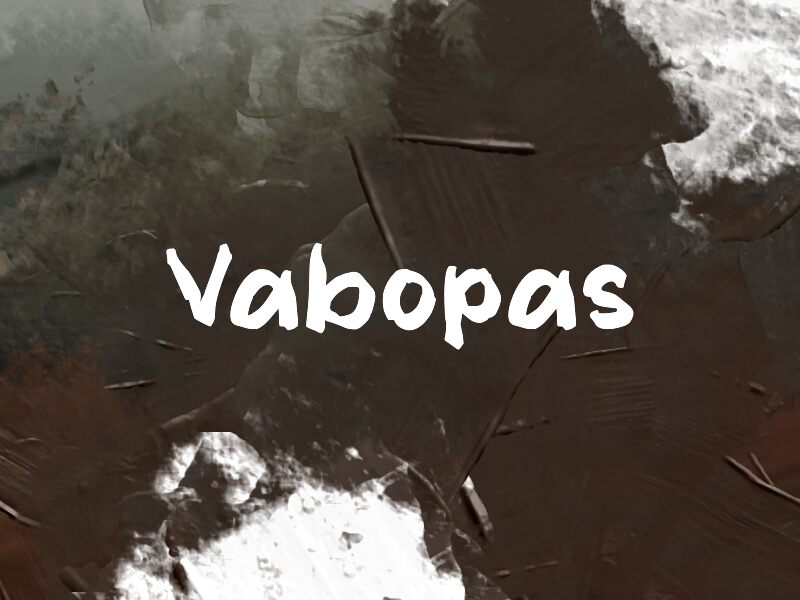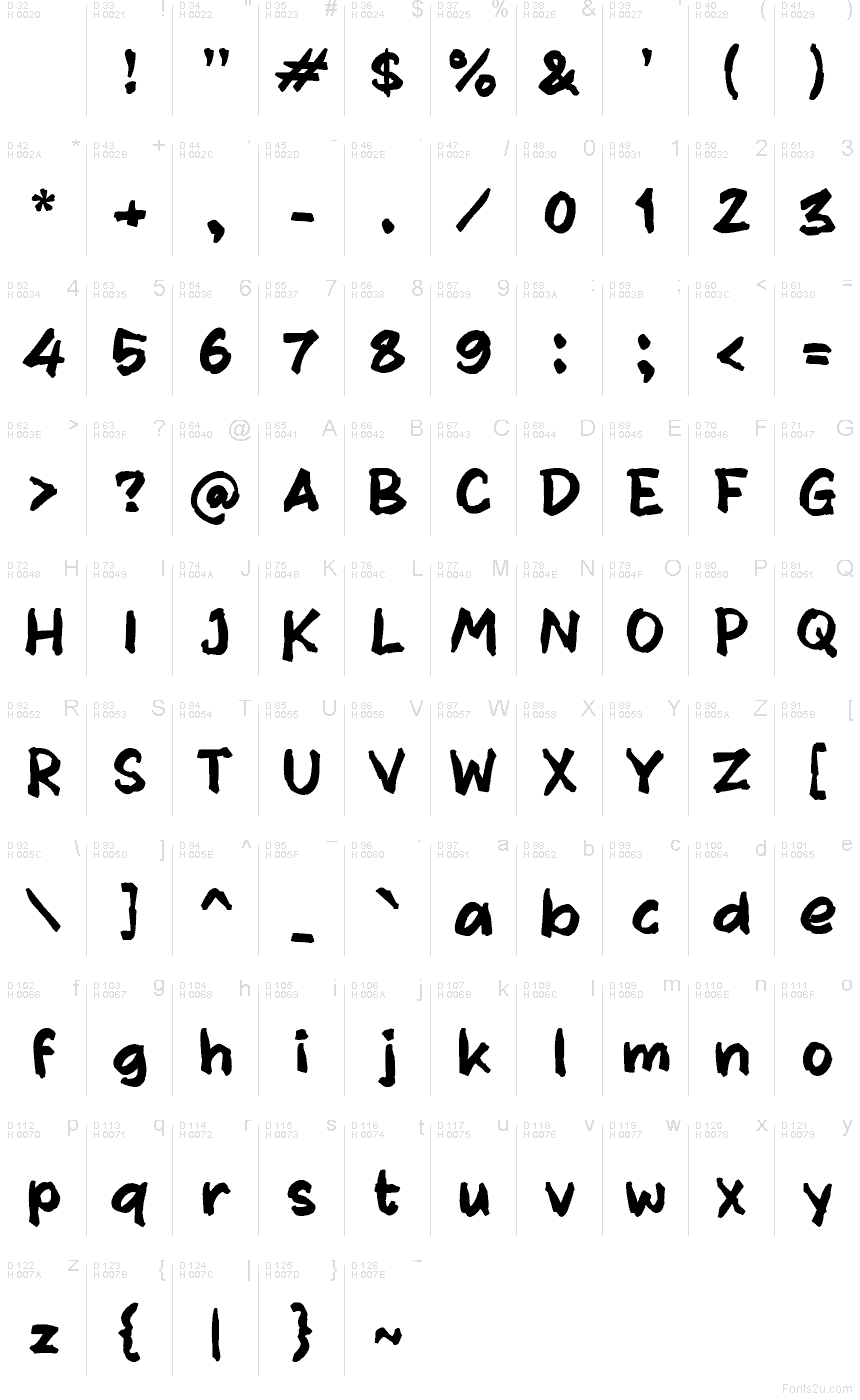
Vabopas by Wep is a free brush font with the blunt, hand-painted feel of quick poster lettering. The letters look packed with ink, with rounded loops, rough edges, and slightly uneven strokes that keep the rhythm loose rather than polished.
It fits music flyers, streetwear graphics, indie zines, packaging, and cafe branding where a human, made-fast mark helps carry the message. As a free font, it also works well for short headlines, cover lines, and title cards, because the heavy painted shapes hold attention even when the wording is brief.
Vabopas